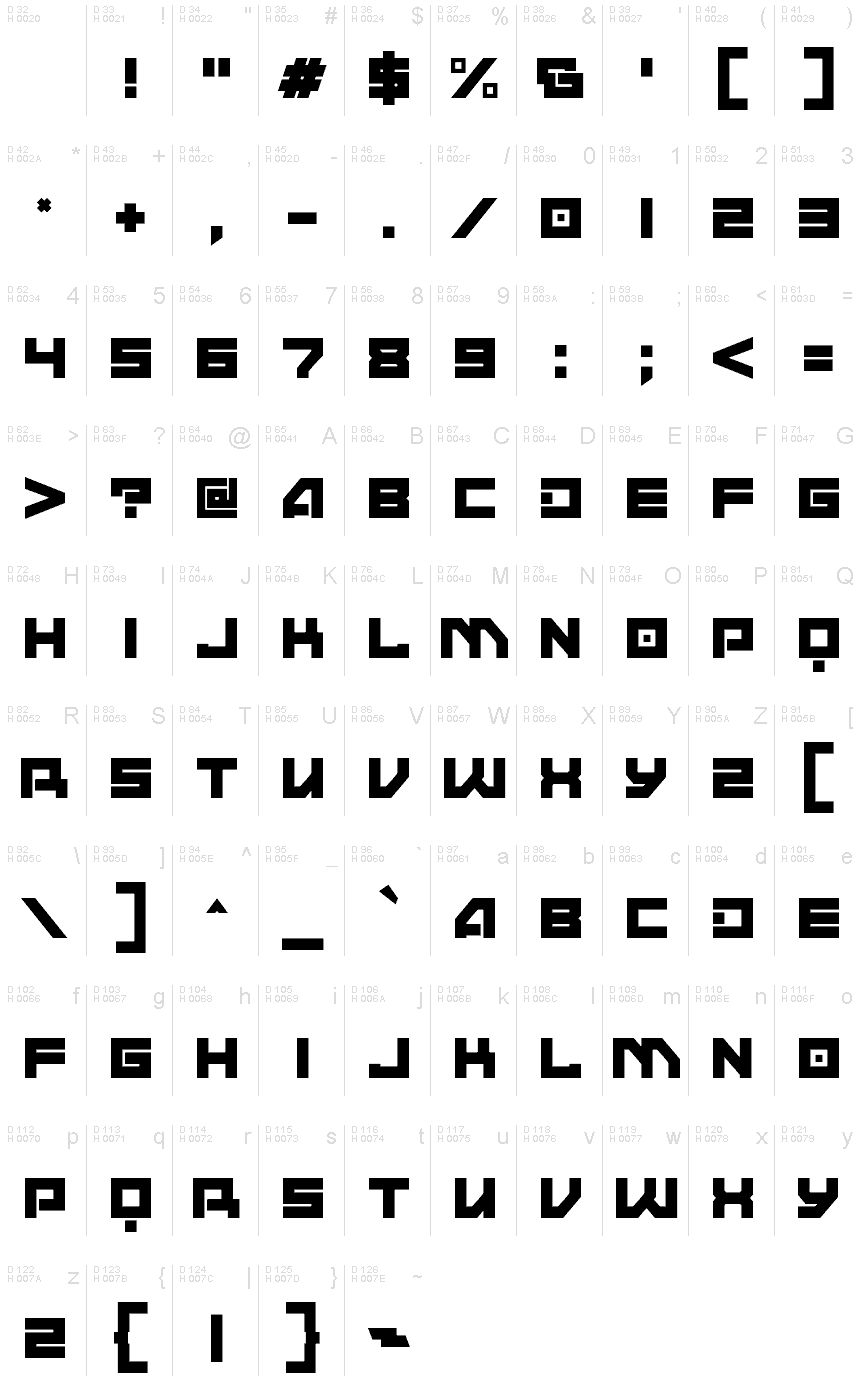
ANDMOREY
Andmorey font from Enxyclo Studio is a display typeface with an eye-catching futuristic design. The expanded width and bold weight make this geometric font truly stand out whenever it’s used. On top of these features, this typeface has an angular build that makes the whole style more modern than you’d expect. If you ever find yourself working on a tech-inspired project, you already know which font you should be looking for.
Needless to say, Andmorey will work flawlessly in futuristic designs including game interfaces, book covers, movie and TV series titles etc. In addition to title use, it can also be integrated into posters or packaging design (bags, wraps etc.). This free techno display font can also be used in branding where it could become the logo typeface! It would also look amazing in musical album covers or concert tickets and flyers or posters advertising them.